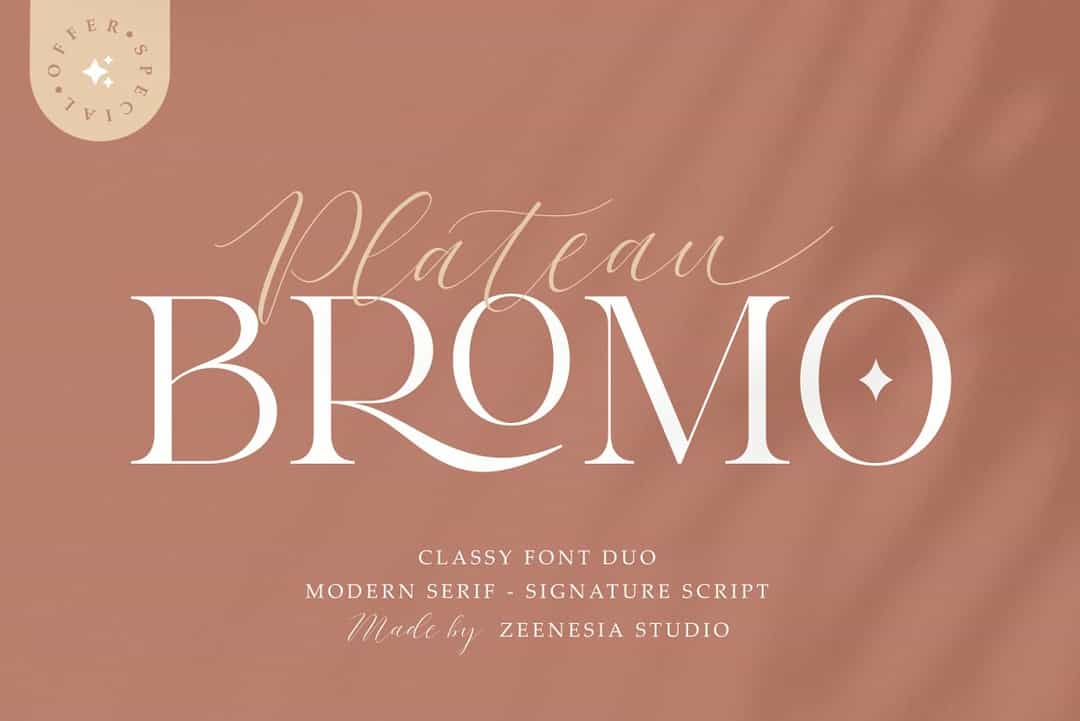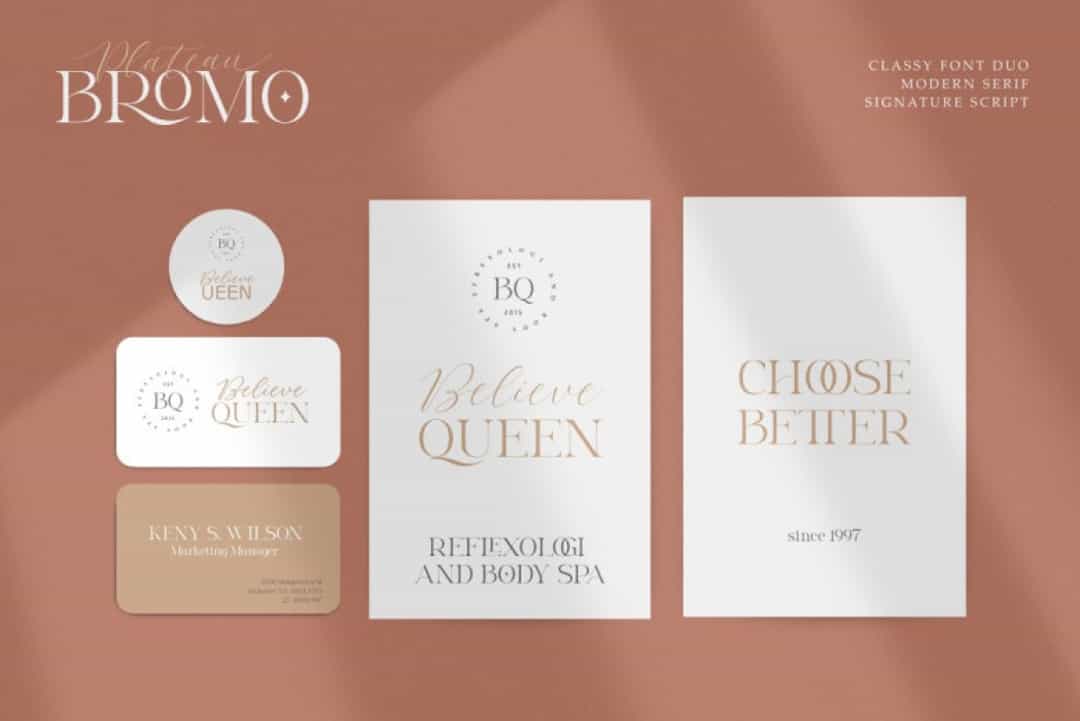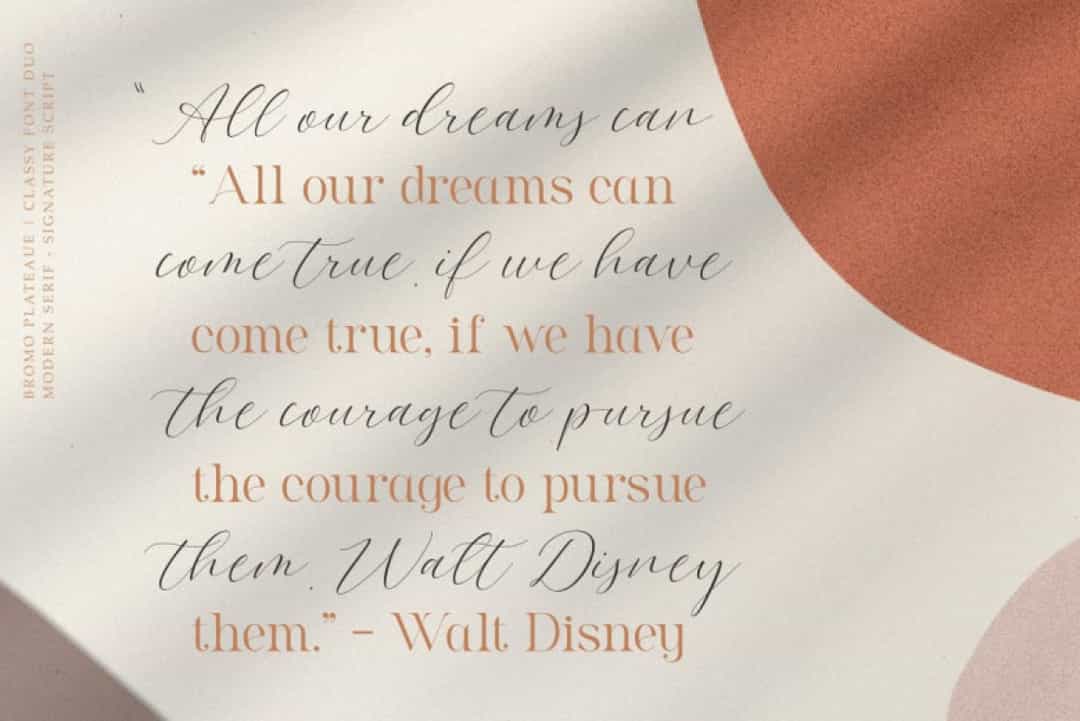
Discover Bromo Plateau Font, part of the Handwritten Serif collection—a versatile and unique font perfect for adding a personal touch to your projects. Download it for free and enjoy crafting designs with style, from invitations to social media posts. This font is available exclusively for personal use, giving you the freedom to create without limits. Unlock your creativity with Bromo Plateau Font today!
Introducing Bromo Plateau Font Duo, an eye-catching font pair comprised of serif typeface and signature script. Perfect for wedding invitations, logo branding or typography projects such as quotes text magazines etc – and any other project!